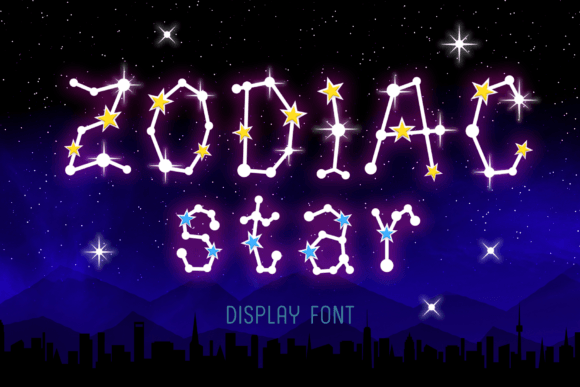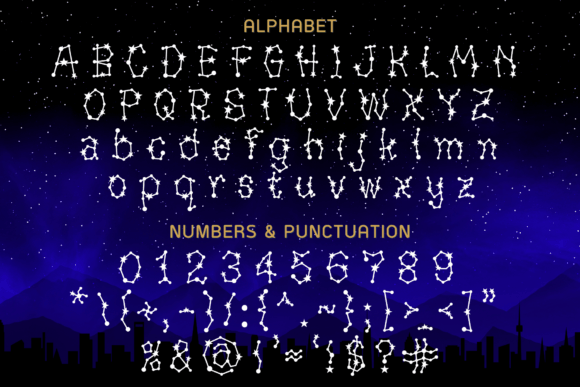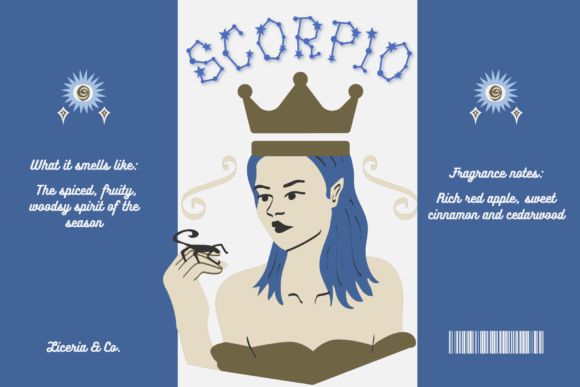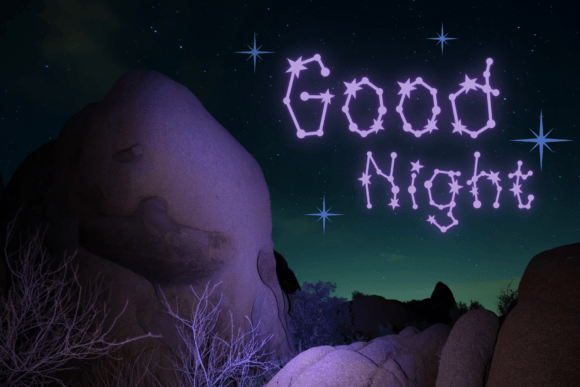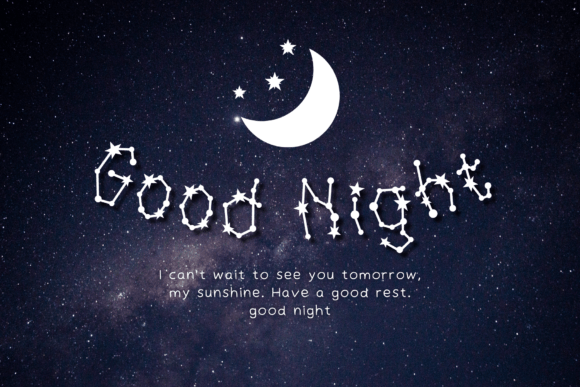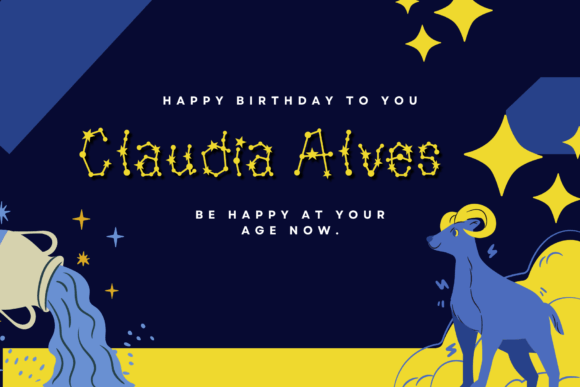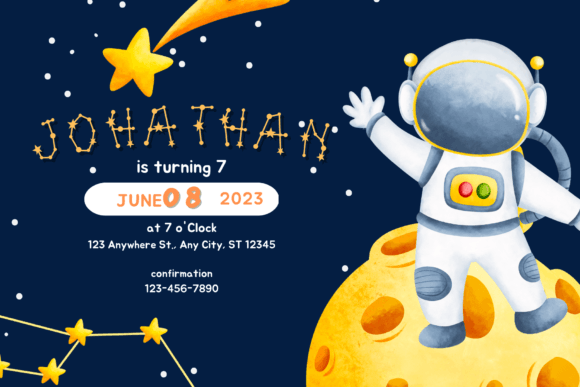
Zodiac Star Font
Zodiac Star is a lovely display font that features letters following a path of stars, evoking a magical and dreamy atmosphere. Its elegant and whimsical design is perfect for book covers, posters, and designs that require a touch of enchantment. Starry Night adds a touch of wonder and mystique to any project.